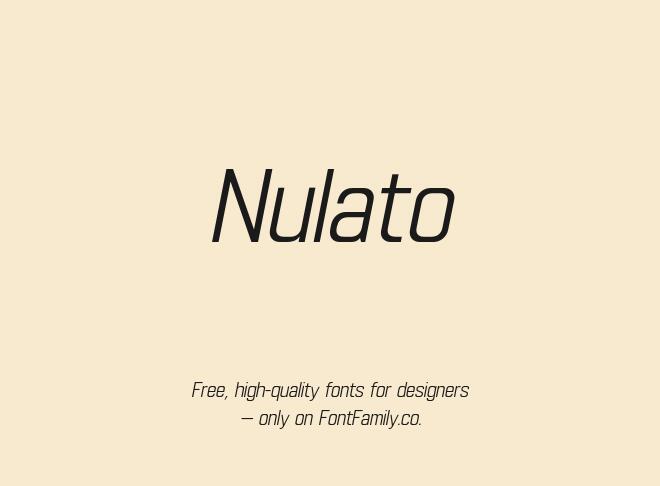
Nulato Font
Introducing Nulato Font, a modern and geometric typeface that exudes elegance and sophistication. With its clean lines and minimalistic design, Nulato Font is perfect for a wide range of applications, from branding and logo design to presentations and digital media. Its fine balance between simplicity and style sets it apart from other fonts, making it a great choice for designers seeking to make a bold statement. This free-to-download font is ideally suited for those who appreciate the beauty in simplicity. Its versatility makes it a go-to font for many designers. Nulato Font is a testament to modern design principles, seamlessly blending form with function. Its unique character and aesthetic appeal make it a must-have in any designer's toolkit.